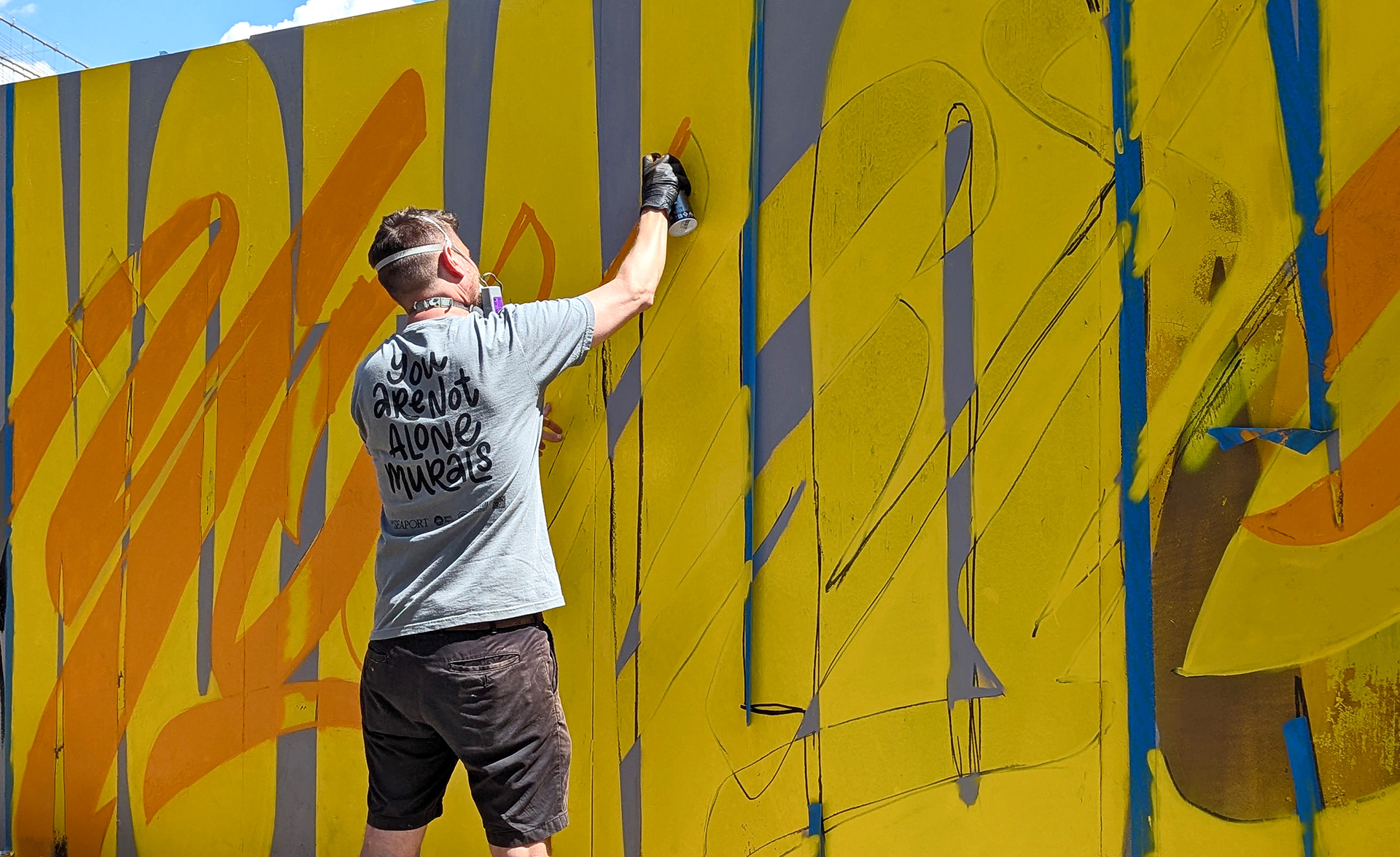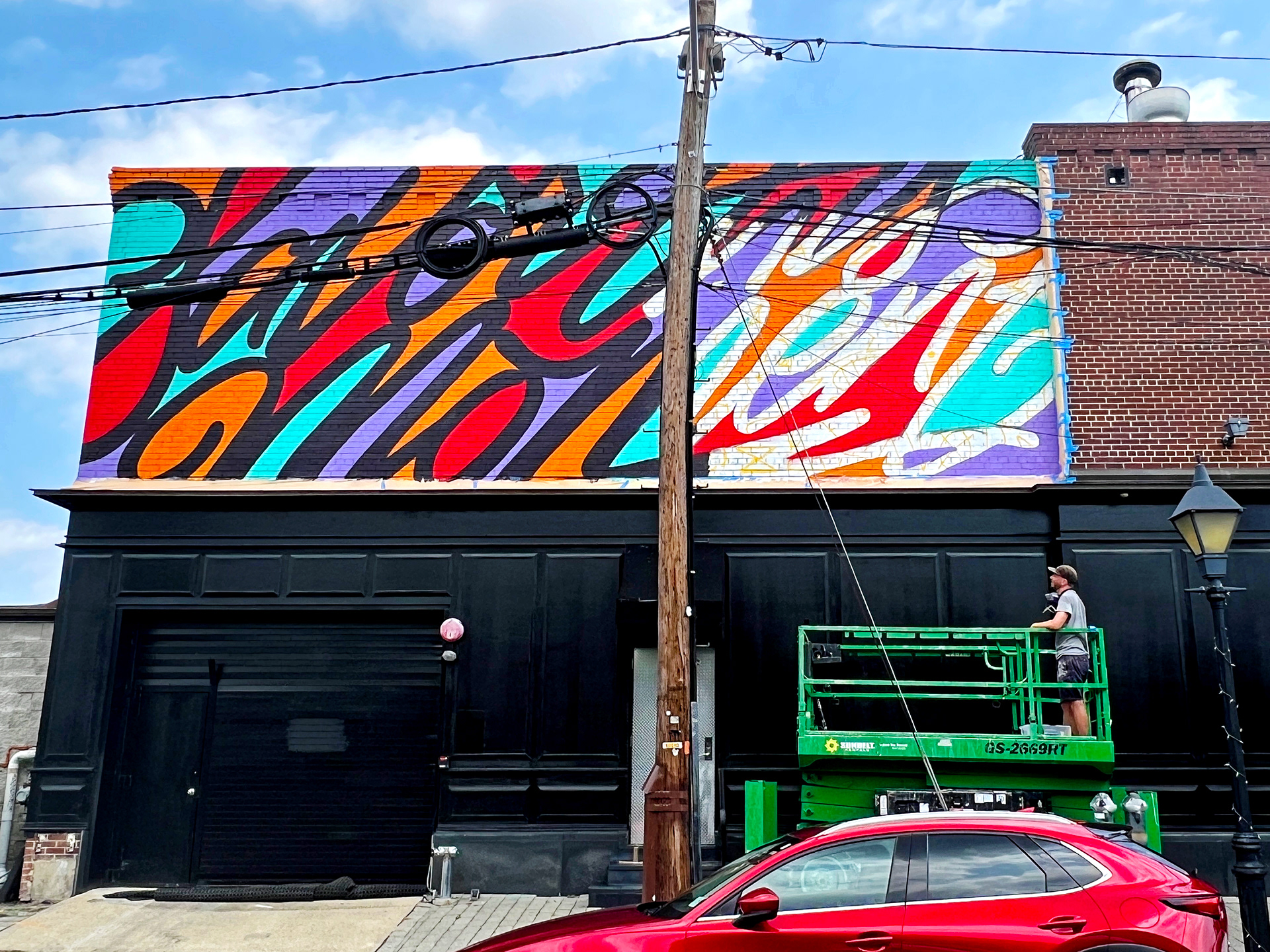
Harun creates bespoke lettering art & murals rooted in impactful, hand-crafted graphic design principles
His work thrives at the intersection of traditional script-lettering and modern graphic art, exploring themes of humor, self-reflection, and community. Using clever wordplay, his signature style blends bold colors, striking shapes, and dynamic negative space. He specializes in scaling letterforms through murals and public art, taking intimate hand-lettering from pen and paper and supersizing it to envelope the viewer with immersive messages.
With murals in New York, Boston, New Jersey, and Spain he has collaborated with a diverse roster of clients, including New York-Presbyterian, American Express, the New Jersey State Council on the Arts, Adda Art Gallery, The Graham & Co. hotel, and You Are Not Alone Murals.
Dedicated to the craft of visual communication, Harun is a graduate from the Cooper Union, Type@Cooper Typeface Design program. He's also been awarded with a Certificate of Typographic Excellence from the Type Directors Club and an Ex Award for his work in experiential design.